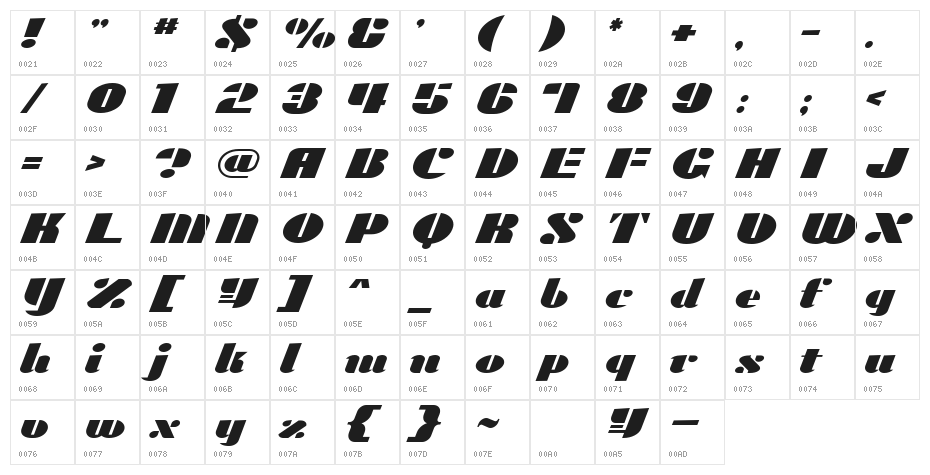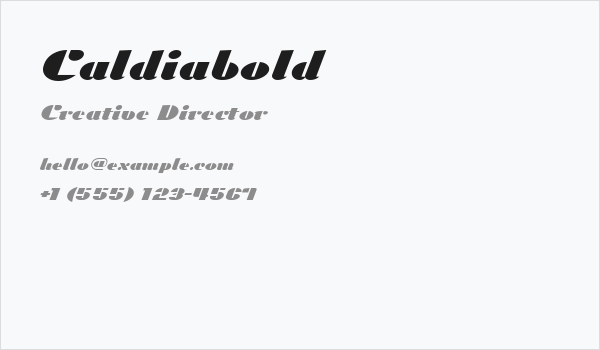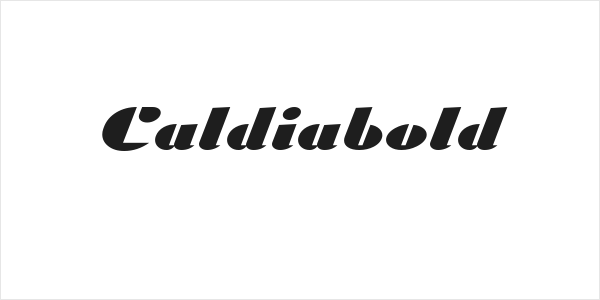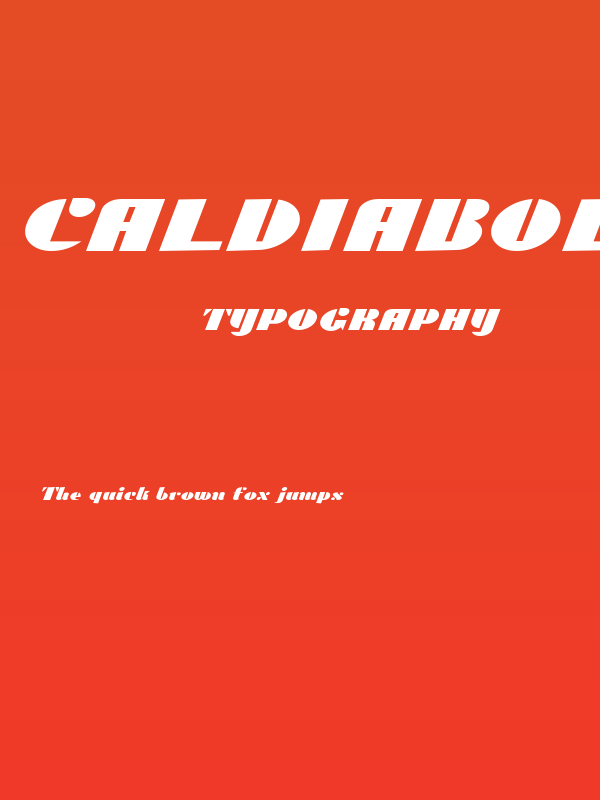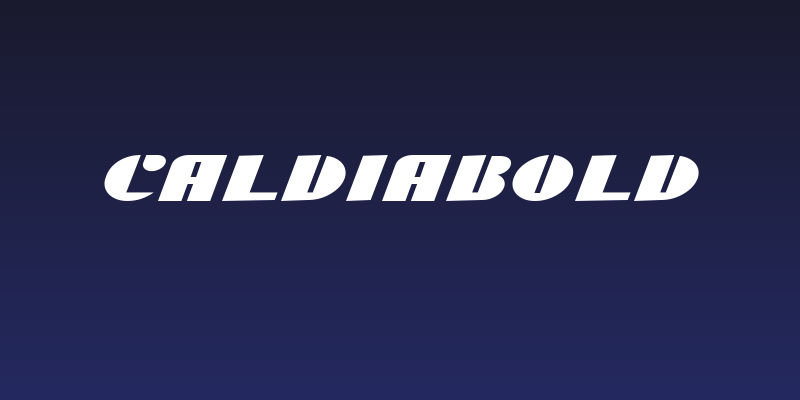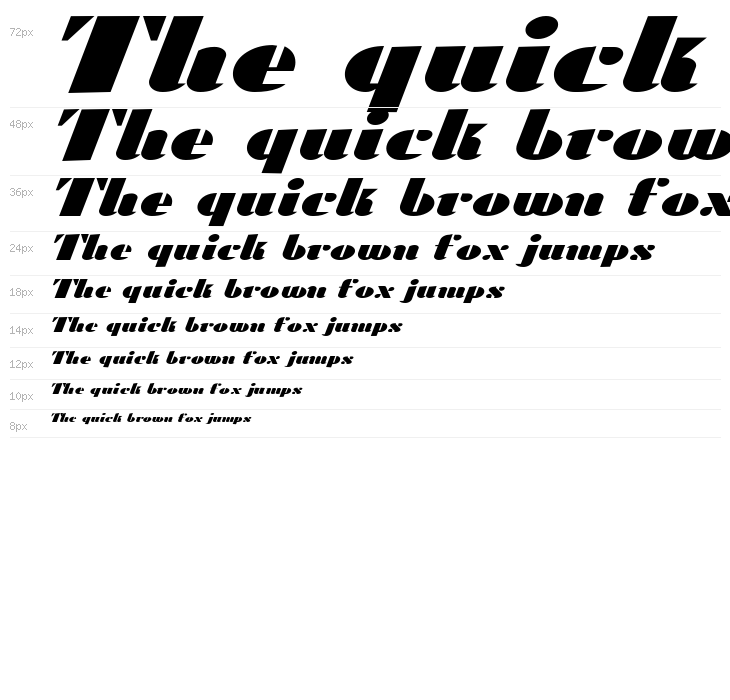
Caldiabold Font
Caldiabold Description
This font features a bold and dynamic design with a strong presence. The characters are slanted, giving it an italicized appearance, yet maintaining a robust and solid structure. The strokes are thick, contributing to a high contrast between the thick and thin parts of the letters. The overall style is modern and eye-catching, suitable for making a statement. The uppercase and lowercase letters are consistent in style, with the same boldness and slant. Numbers and special characters follow the same design principles, ensuring uniformity across all glyphs.